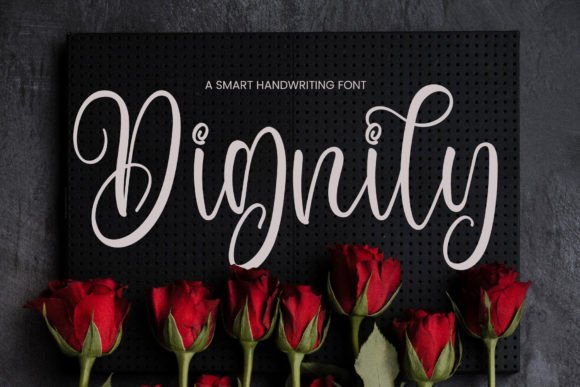
Introducing Dignity Font - The Epitome of Elegance and Grace for Your Wedding Invitations
In the realm of wedding stationery, the font you choose holds the power to set the tone, evoke emotions, and create a lasting impression on your guests. Allow us to introduce Dignity Font - a meticulously crafted script font that embodies sophistication, romance, and timeless charm.
With its graceful strokes and elegant curves, Dignity Font exudes an air of refinement that is sure to elevate your wedding invitations to new heights of beauty. Inspired by classic calligraphy, this font strikes a perfect balance between tradition and modernity, ensuring your invitations stand out with a touch of contemporary flair.
As you embark on the joyous journey of planning your special day, Dignity Font will accompany you as a trusted companion, transforming your invitations into exquisite works of art. Its carefully designed characters dance harmoniously across the page, creating a visual masterpiece that captures the essence of your love story.
Picture your wedding invitations adorned with Dignity Font’s enchanting script, inviting your guests to a celebration filled with joy, elegance, and heartfelt emotions. The delicate serifs and sweeping lines add a touch of whimsy and romance, perfectly complementing the momentous occasion you’re about to embark on.
Dignity Font is not just a font; it's an expression of your love, a reflection of your unique style, and a testament to the enduring bond you share with your partner. Trust this exquisite font to convey the depth of your emotions and create a lasting memory that you and your guests will cherish forever.
Beyond wedding invitations, Dignity Font lends its charm to a wide array of creative projects. From save-the-date cards and thank-you notes to menus and programs, this versatile font adds a touch of sophistication to any occasion. Its timeless appeal makes it an ideal choice for branding, logos, and marketing materials, allowing your business to stand out with a distinct and memorable identity.